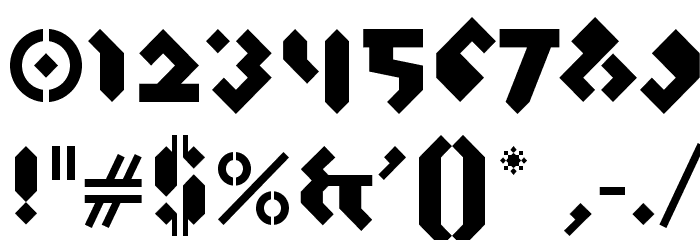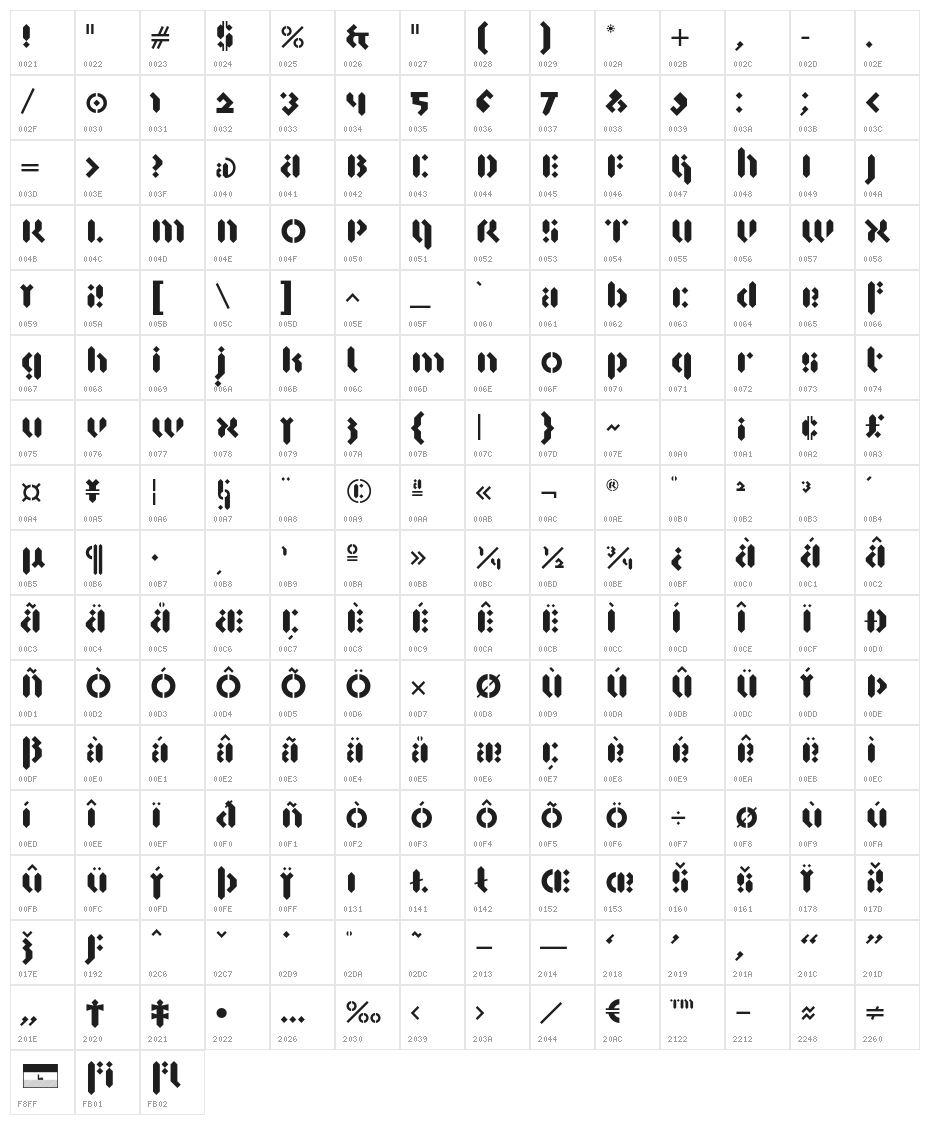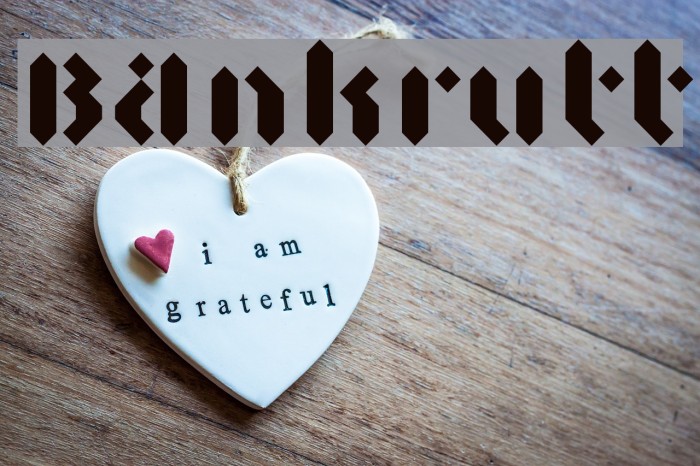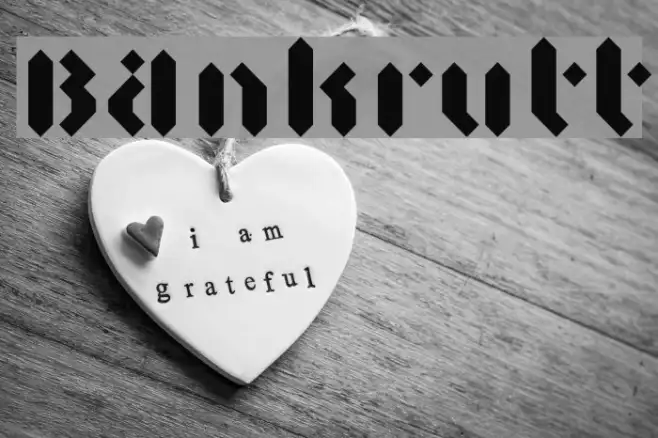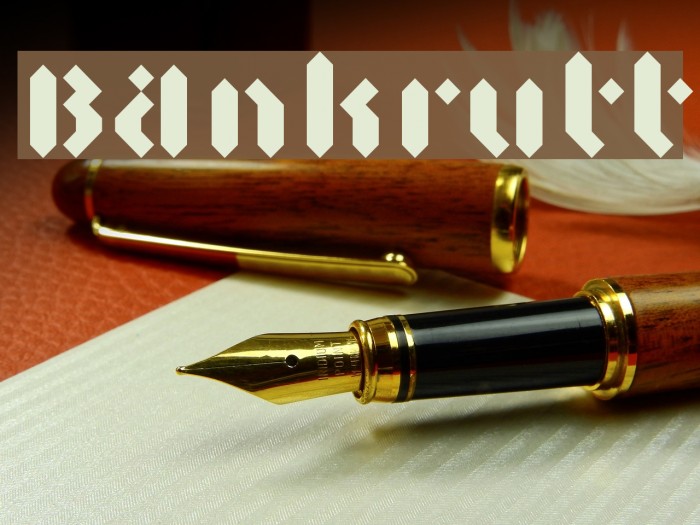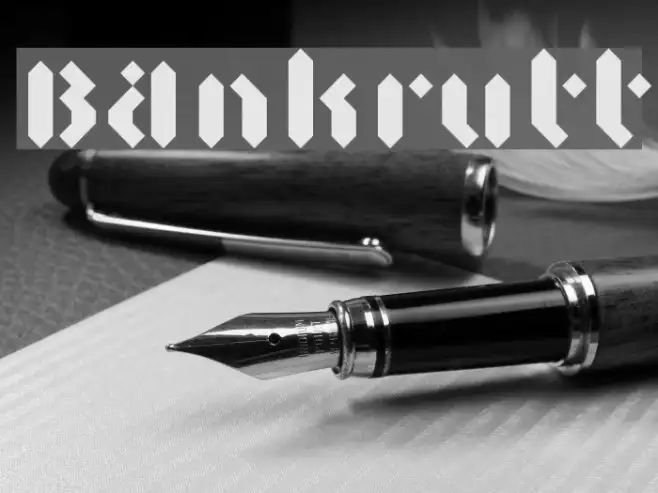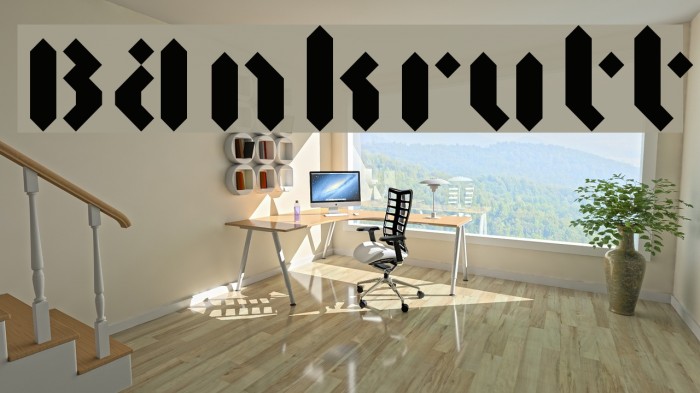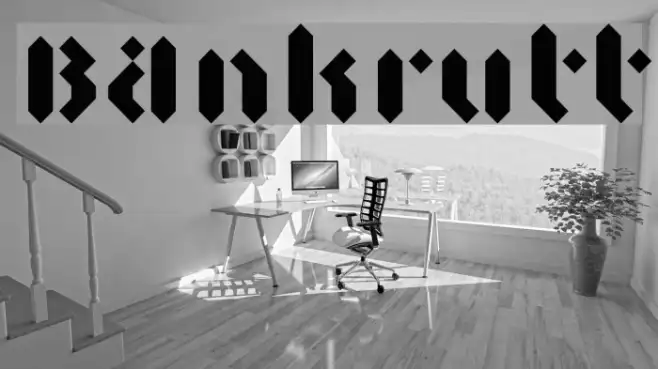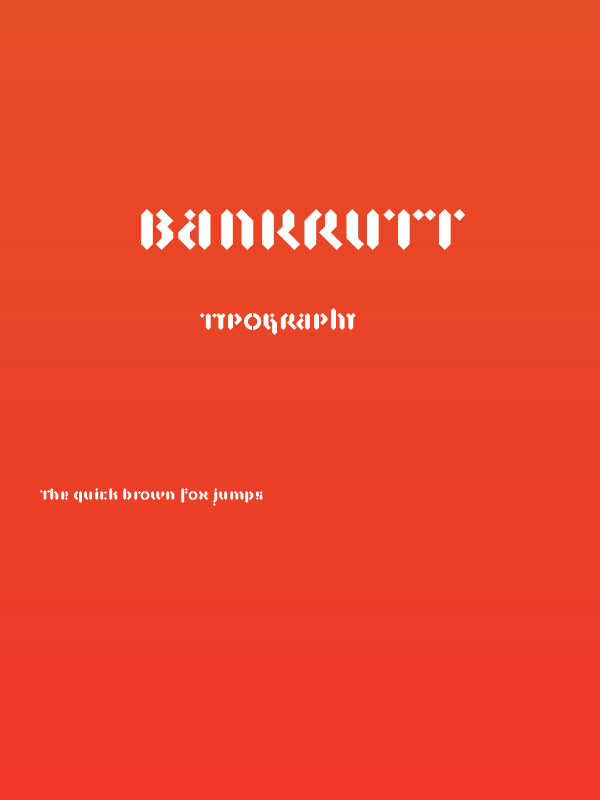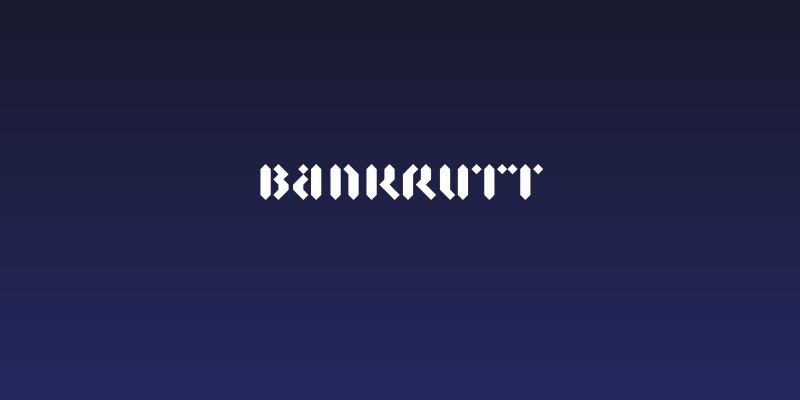
BAnkrutt Font
BAnkrutt Description
This font features a bold and striking blackletter style, characterized by its sharp, angular lines and dramatic presence. The uppercase and lowercase letters maintain a consistent geometric form, with pointed edges and a strong vertical emphasis. The numerals and special characters are equally bold, integrating seamlessly with the overall design. The font's intricate details and historical flair make it stand out, evoking a sense of tradition and authority. Its high contrast between thick and thin strokes adds to its visual impact, making it suitable for projects that require a touch of elegance and formality.